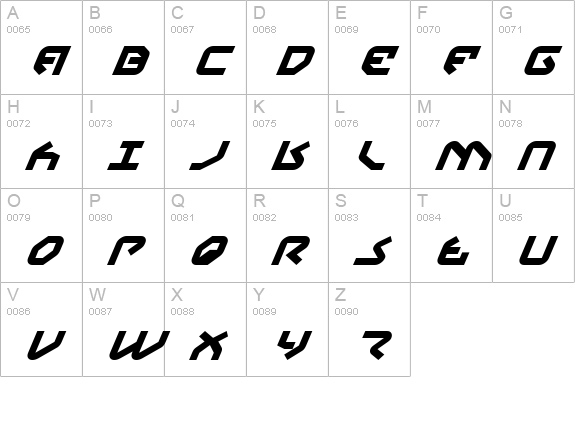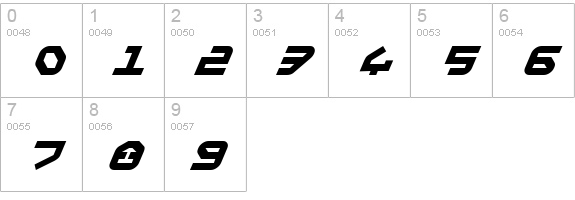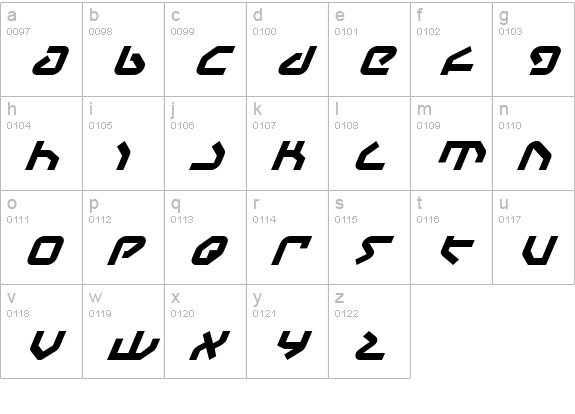
Yahren Italic is a distinctive, italic variant in the Yahren typeface family \xE2\x80\x94 well suited to design and typography projects.
Yahren Italic font is a sleek and modern typeface designed to add a touch of sophistication to your projects. With its elegant curves and stylish appearance, this font is perfect for creating eye-catching designs that demand attention. The italic style adds a sense of flair and elegance to any text, making it ideal for projects that require a touch of class. What makes Yahren Italic font even more appealing is that it is available for free download at FontsMarket.com. This means you can easily access this beautiful font without any cost, making it a valuable addition to your font collection. Whether you're working on a professional design project or simply looking to elevate your personal creations, Yahren Italic font is sure to impress with its versatility and charm. Download it today and start creating stunning designs with ease.